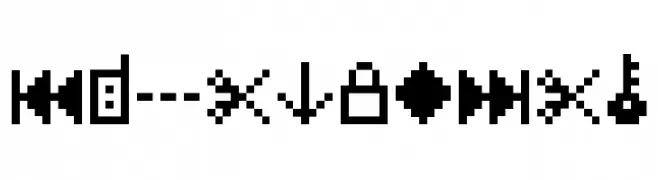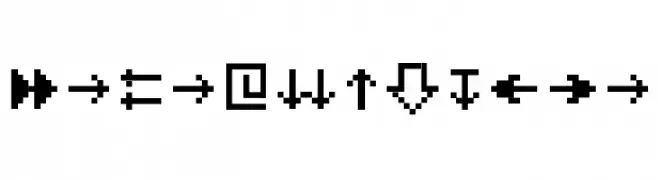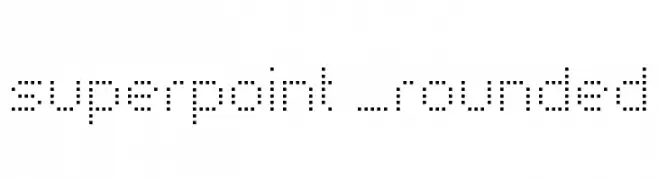
( Font by Sven Stuber - www.superlooper.de )
A modern, dotted font with a rounded, digital aesthetic.
( Fonts by Bartek Nowak - www.nowak.tv/fontoholic/ )
A pixelated, decorative font featuring arrows and geometric shapes.
( Fonts by Ruben Prol - www.ipanemagrafica.com )
A pixelated, retro font inspired by early digital displays.